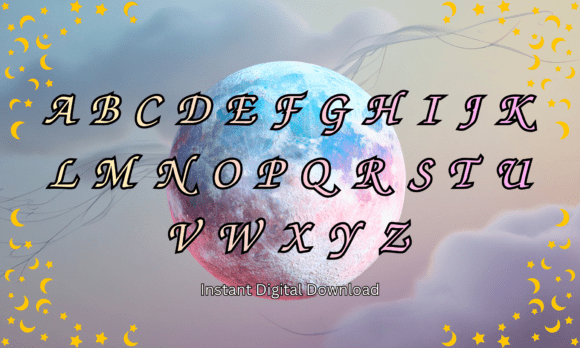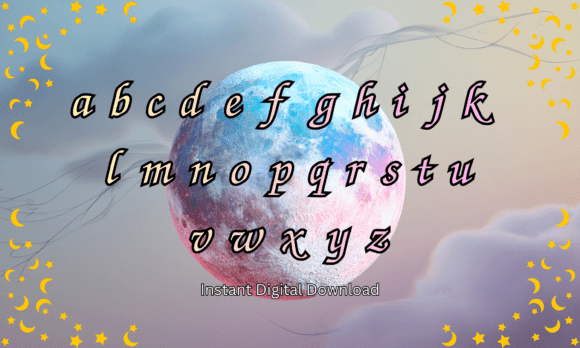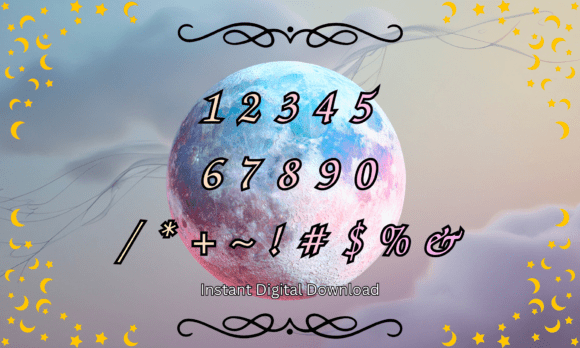
Introduction to Moonveil Script Font
Step into a world of celestial wonder with Moonveil Script, a whimsical display font that captures the magic of the night sky.
Characterized by its elegant, calligraphic silhouettes and a striking high-contrast outline, this typeface balances β€œOld World” charm with a modern, mystical energy Whether you are designing for a fantasy novel, an astrology-themed brand, or magical event stationery, Moonveil Script provides an ethereal glow that makes your text feel truly legendary.
Key Features of Moonveil Script Font
Why Choose Moonveil Script Font?